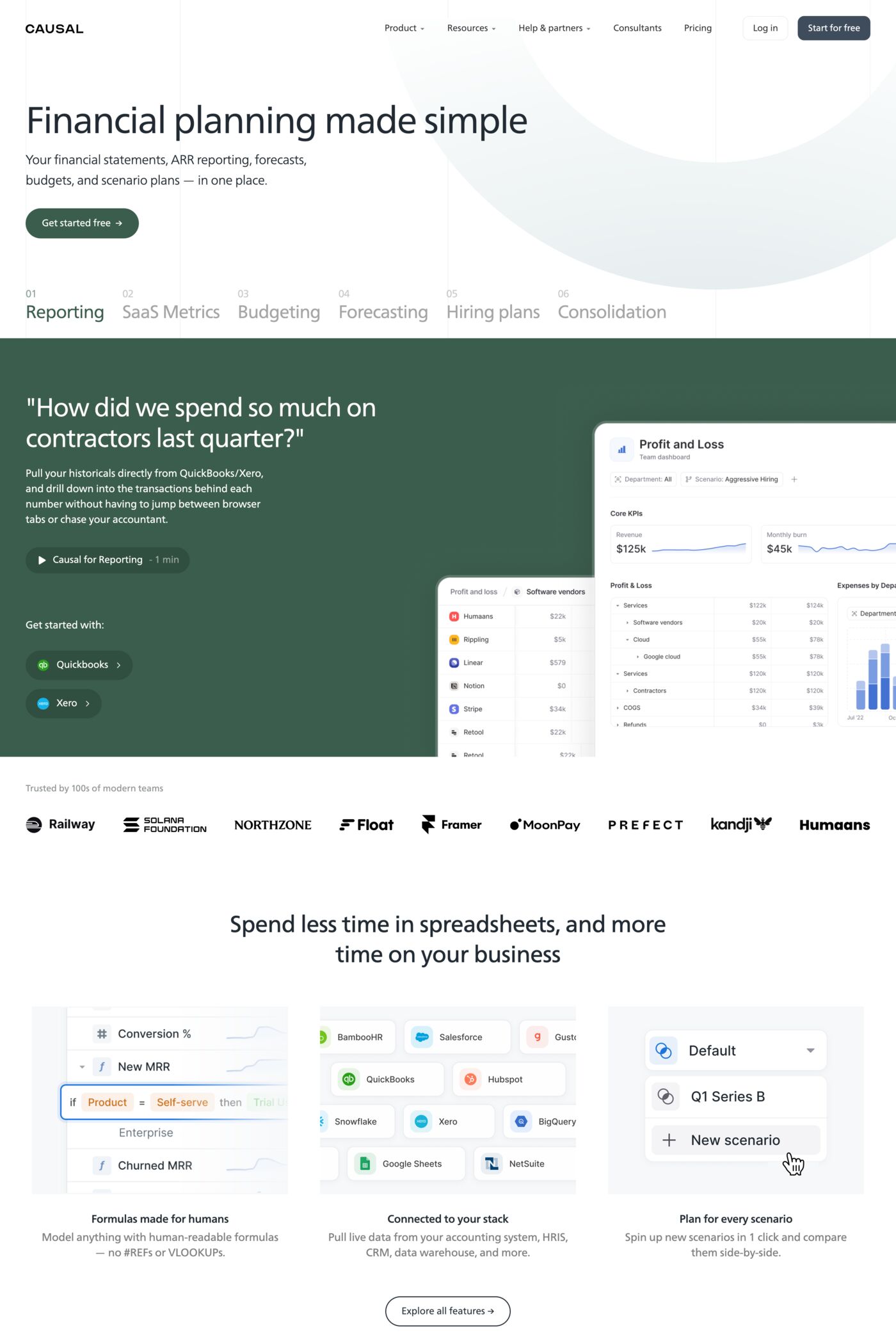
Neue Frutiger World is a sans-serif typeface from Monotype.
Neue Frutiger World is designed for global use with an impressive range of 10 weights, from Ultra Light to Extra Black, with matching italics.